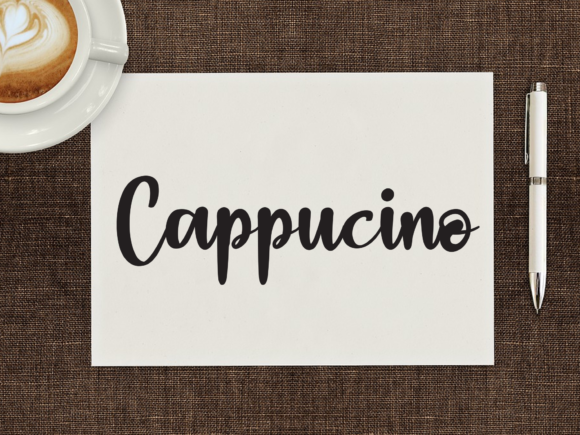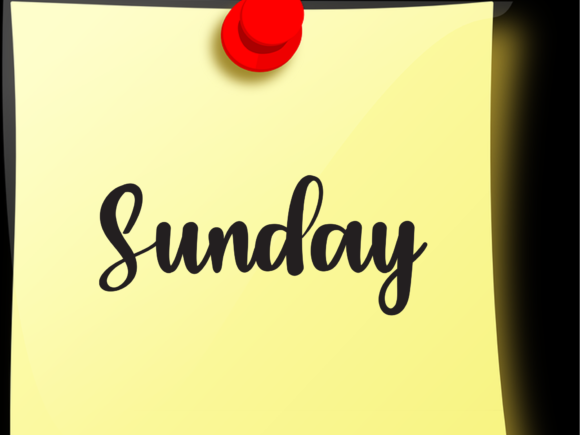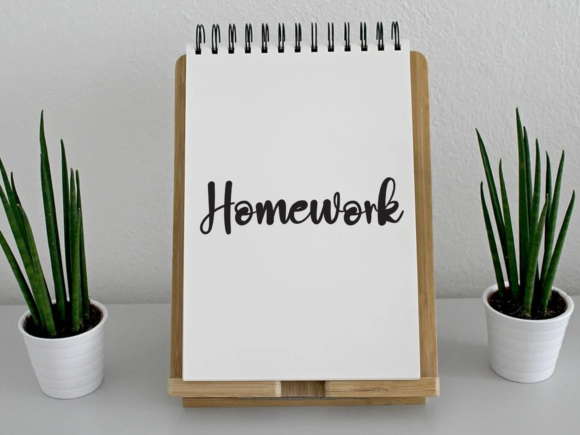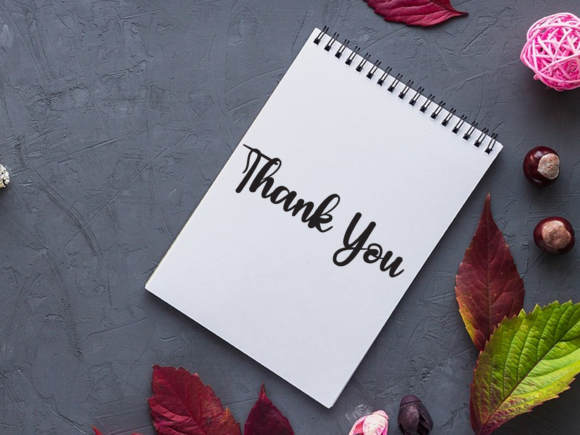
Introducing Good Day Font: A Sweet Handwritten Delight
Are you tired of using the same old fonts for your designs? Look no further! Good Day Font is a beautiful, handwritten font that is sure to add a touch of sweetness to your creations. In this article, we’ll dive into the world of Good Day Font, exploring its features, uses, and benefits for designers and crafters alike.
What is Good Day Font?
Good Day Font is a carefully crafted, handwritten font designed to produce high-quality outcomes. With its unique and charming style, this font is perfect for adding a personal touch to your designs. Whether you’re working on a project for a client or creating something for your own brand, Good Day Font is sure to impress.
Features of Good Day Font
- Handwritten style: Good Day Font boasts a beautiful, handwritten style that is both elegant and playful.
- Carefully crafted: This font was made with great care to ensure that it meets the highest standards of quality.
- Versatile: Good Day Font can be used for a wide range of projects, from branding and advertising to packaging and more.
- Easy to read: Despite its handwritten style, Good Day Font is easy to read and understand, making it perfect for body text and headings.
Uses of Good Day Font
Good Day Font is an incredibly versatile font that can be used for various kinds of products, including:
- Branding and logos: Create a unique and memorable brand identity with Good Day Font.
- Advertising and marketing materials: Use Good Day Font to add a touch of personality to your ads, flyers, and brochures.
- Packaging design: Make your product stand out on store shelves with Good Day Font.
- Stationery and invitations: Add a personal touch to your stationery, invitations, and greeting cards.
- Digital products: Use Good Day Font in your digital products, such as ebooks, courses, and more.
Benefits of Using Good Day Font
So, why choose Good Day Font for your designs? Here are just a few benefits:
- Unique style: Good Day Font offers a fresh and unique style that will set your designs apart from the crowd.
- Emotional connection: The handwritten style of Good Day Font creates an emotional connection with your audience, making your designs more relatable and engaging.
- Flexibility: Good Day Font can be used for a wide range of projects, making it a great addition to your font library.
Tips for Using Good Day Font
To get the most out of Good Day Font, here are a few tips:
- Use it for headings and titles: Good Day Font is perfect for headings and titles, where its unique style can really shine.
- Pair it with other fonts: Experiment with pairing Good Day Font with other fonts to create a unique and interesting look.
- Adjust the size and color: Play around with different sizes and colors to find the perfect combination for your design.